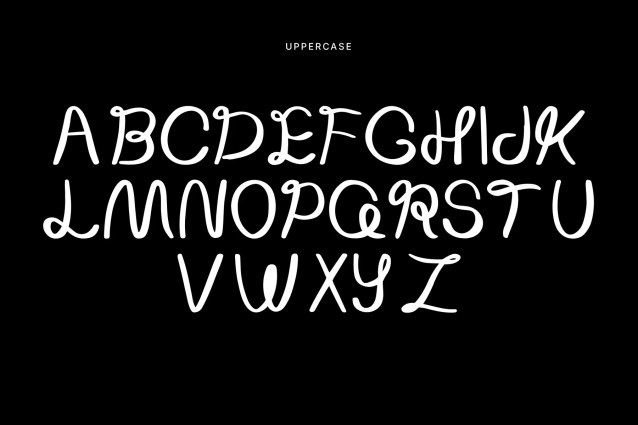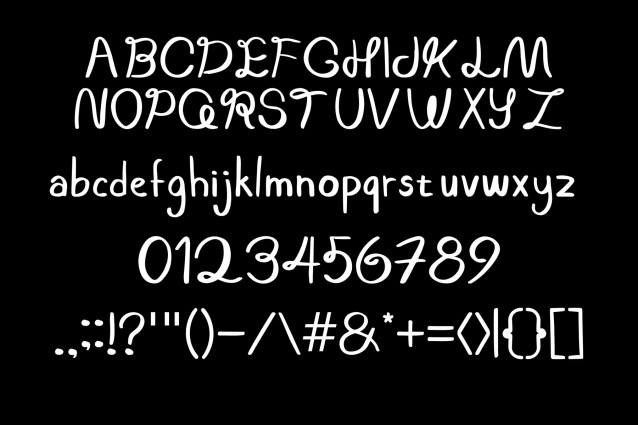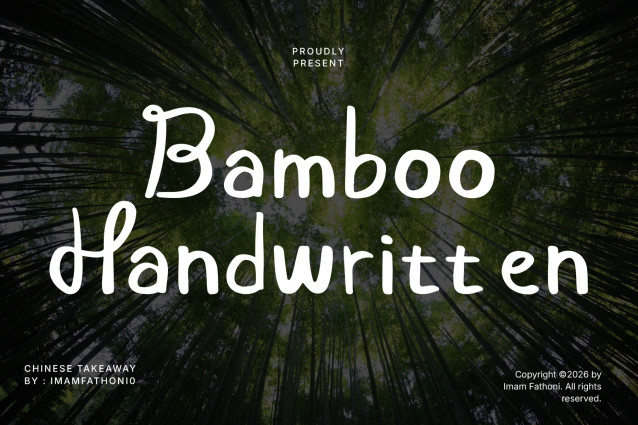
Bring organic nature-inspired charm, relaxed hand-drawn grace, and casual warmth to your typography with Bamboo Handwritten! This friendly handwritten display font features smooth monoline strokes, decorative looped uppercase accents, and slightly bouncy letterforms. Its approachable, handcrafted silhouette gives headlines a gentle, serene feel that instantly connects with your audience.